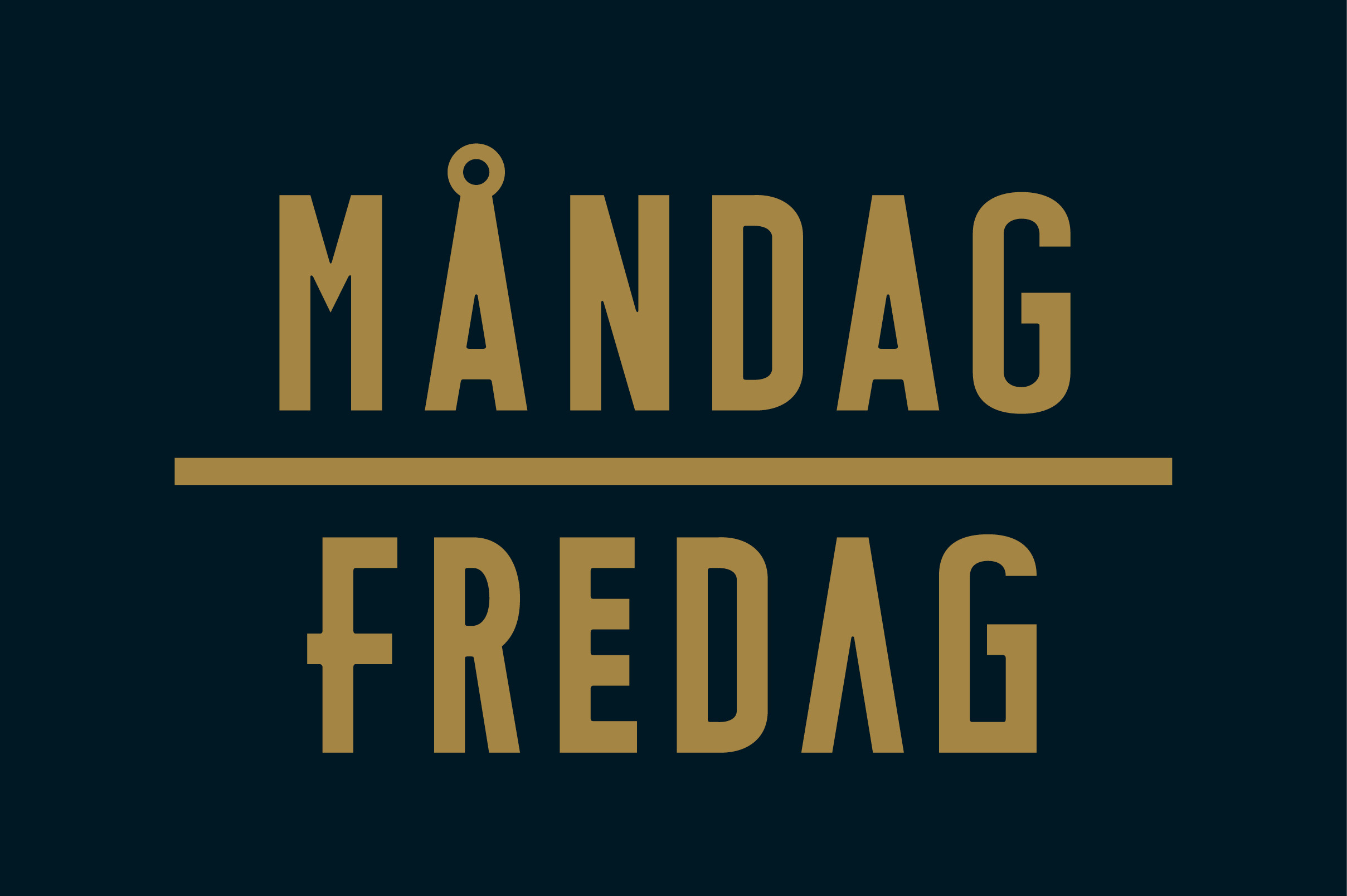
MÅNDAG - FREDAG Typeface
Måndag is a clean and subtle condensed sans serif with friendly shapes and round details.
With it's second style Fredag the subtle typeface becomes experimental and wild and combines the classic letters with alternate versions. Choose yours now!
Includes special characters
Supports various different languages like
- Spanish/latin American
- French
- German
- Scandinavian languages
- Slavic languages